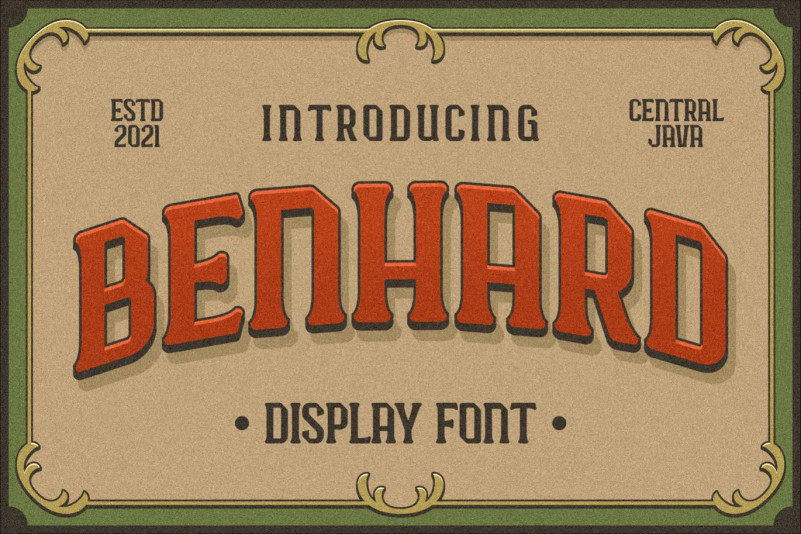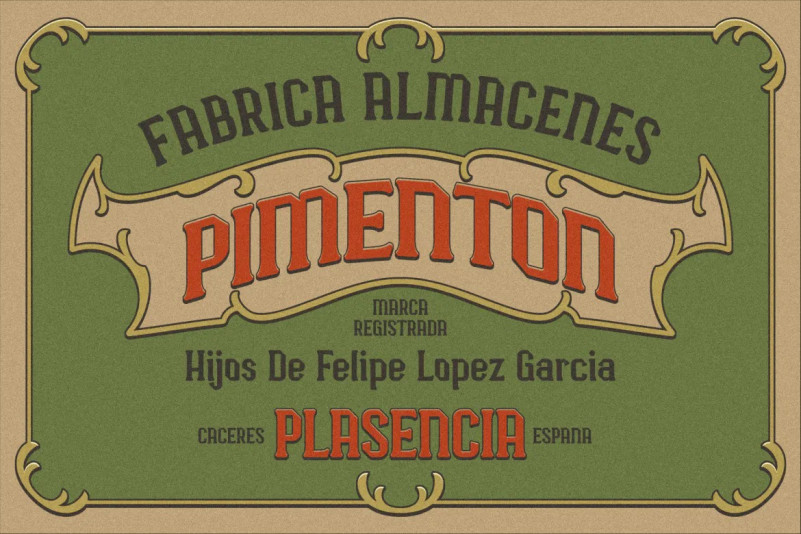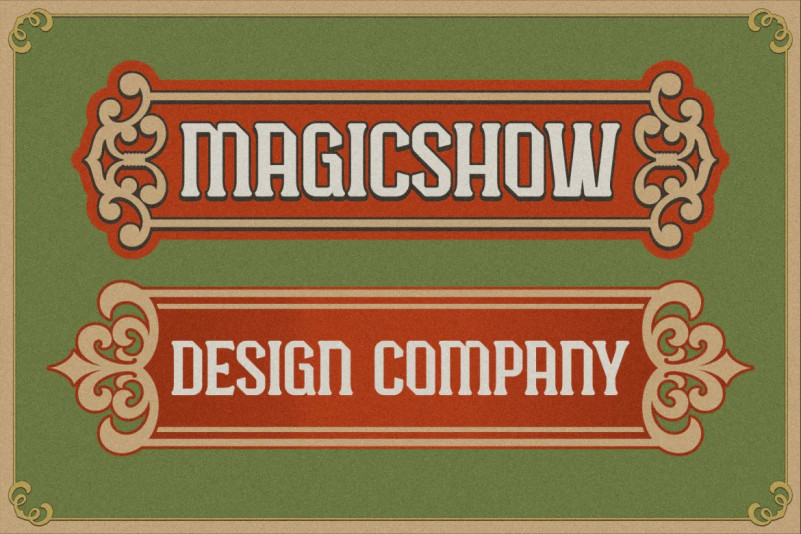
BENHARD Font
BENHARD is a display font with masculine characteristics suitable for old or modern styles, this font can be combined with a sans-serif font suitable for poster fonts, logos, headlines, titles on book covers, films, content and others.